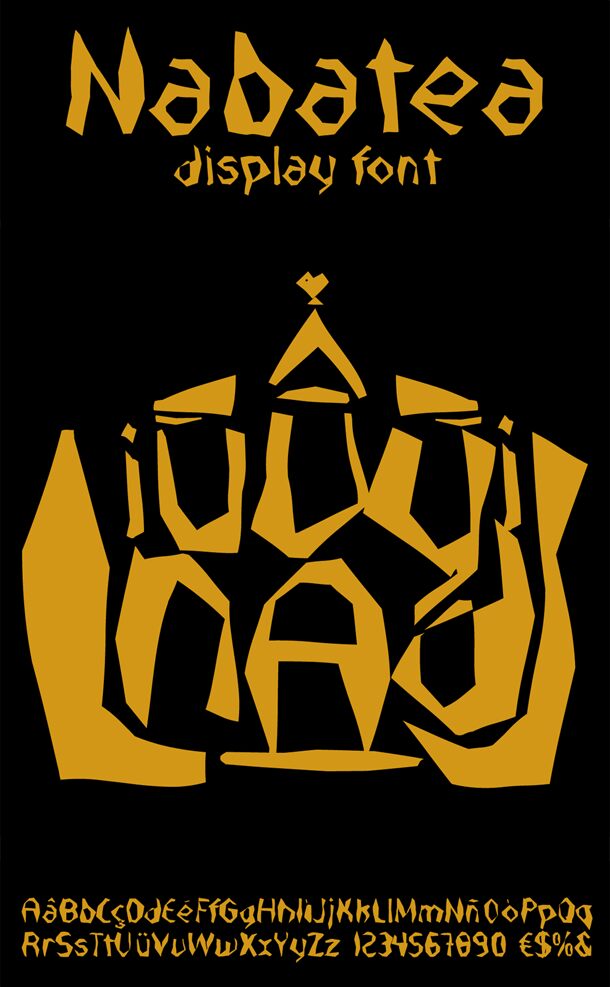
Nabatea by deFharo is a free decorative display font with jagged, sharply cut letterforms. Uneven stroke widths and skewed joins give the capitals a rough-hewn silhouette, with narrow gaps and abrupt angles recurring across the alphabet.
An independent game studio or music label could use it to build an identity around folklore, mystery, or handmade graphics. It also fits festival posters, album packaging, and fantasy publishing, where the irregular shapes can become part of borders, maps, or angular illustration. Across these uses, the common thread is lettering that feels carved and deliberately unpredictable.
Nabatea is a typeface carved with a hammer into hard stone by an individual from the ancient Nabataean people of Arabia Petraea, between the Red Sea and the Euphrates River. It is a tribute to Petra, the Nabataean capital.